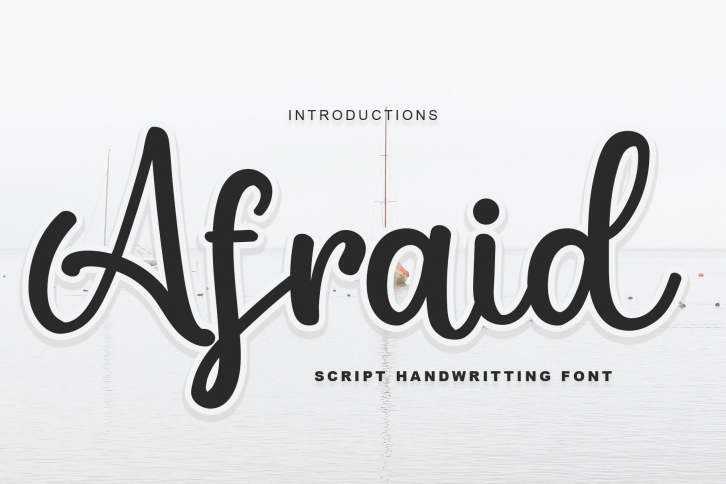
Afraid is a fun and friendly handwritten font. Use it to turn any design idea into a true standout. Get inspired by its unique charm and create lovely designs. This font is PUA encoded which means you can access all of the glyphs and swashes with ease.